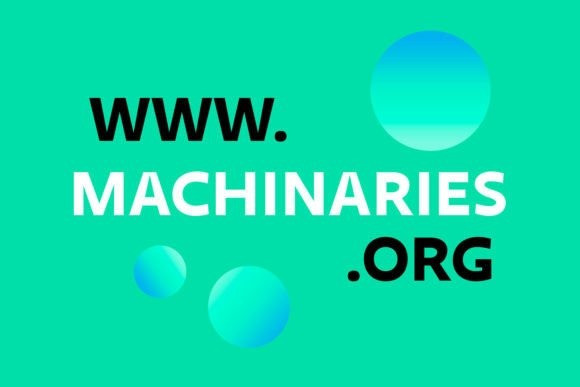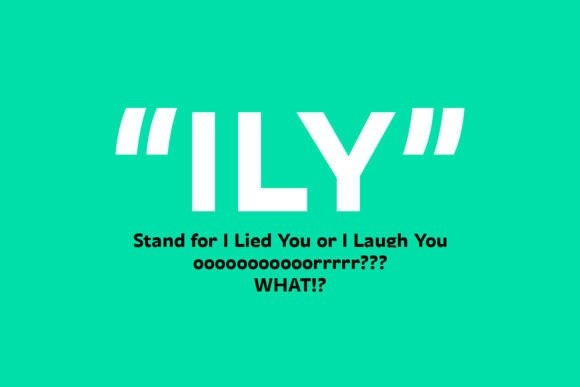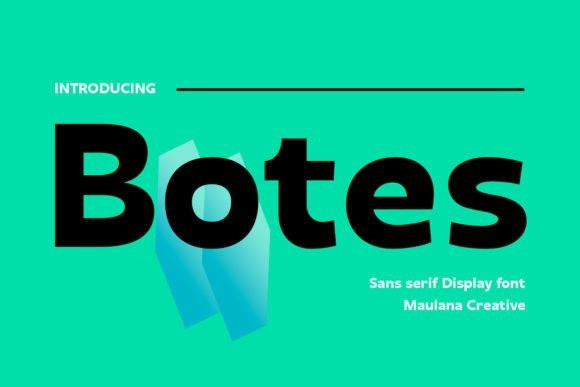
Botes Font
Botes Sans Serif Font is a modern humanist sans serif font. No matter the topic, this font will be an incredible asset to your fonts’ library, as it has the potential to elevate any creation.